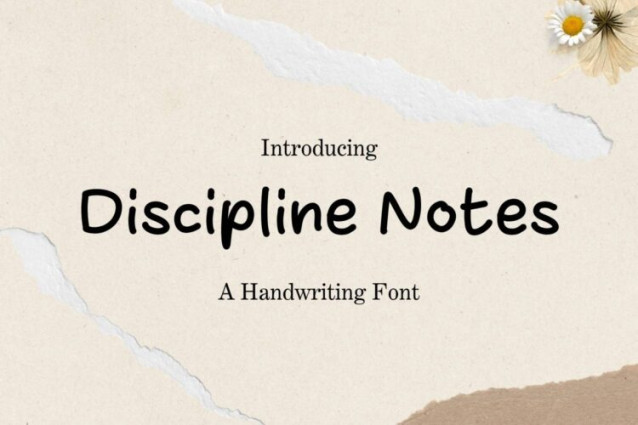
Discipline Notes Font
Discipline Notes Font is a simple and friendly handwritten font. Its natural and unique style makes it incredibly fitting to a large pool of designs. The only limit is your imagination!